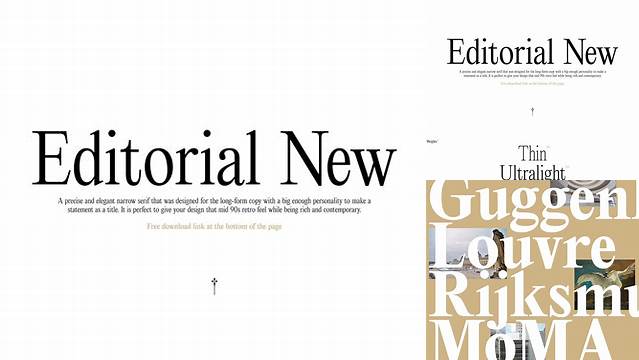
Editorial New Free Font Download: Your Ultimate Guide
Hey guys! Ever been on the hunt for that perfect font to give your project that polished, professional look? Look no further! We're diving deep into the world of editorial new free fonts, and trust me, you're going to love what we've found. Whether you're designing a magazine, crafting a killer website, or just jazzing up your social media posts, the right font can make all the difference. So, let's get started and explore the amazing options out there for editorial new free fonts!
1. Understanding Editorial Fonts
So, what exactly are editorial fonts, and why are they so crucial in the design world? Well, put simply, editorial fonts are the typefaces specifically chosen for use in publications like magazines, newspapers, and books. They're designed with readability and aesthetics in mind, aiming to create a visually engaging experience for the reader. Think about it – the font used in The New York Times is vastly different from the one you might use in a fun, quirky blog post. Editorial fonts often have a sophisticated and elegant feel, conveying professionalism and authority. When considering an editorial new free font download, it's important to think about the message you want to communicate. Are you aiming for a classic, timeless look? Or something more modern and edgy? The right font will seamlessly blend with your content, enhancing its impact and readability. It’s not just about picking something pretty; it's about selecting a typeface that elevates your entire design. Imagine using a Comic Sans-esque font in a serious news article – that wouldn’t fly, would it? So, choosing the right editorial new free font is a crucial step in ensuring your content looks and feels professional. Remember, the font is more than just letters; it's part of your brand identity and the visual voice of your content. By carefully selecting an editorial font, you're investing in the overall quality and impact of your work. Think of it like this: your content is the message, and your font is the messenger. Make sure the messenger is up to the task! That perfect editorial new free font download could be the missing piece in your design puzzle. So, keep exploring and experimenting until you find the one that speaks to you and your project.
2. The Importance of Font Choice in Design
Alright, let's talk about why font choice is so darn important in the world of design. You might think, “Hey, a font is just a font, right?” Wrong! The font you choose can completely change the way your message is perceived. It's like choosing the right outfit for a job interview – you want to make a good impression! For example, imagine you’re designing a website for a high-end luxury brand. Using a playful, cartoonish font would totally clash with the brand's image, right? You'd want something sleek, elegant, and sophisticated, like a classic serif font. That's where editorial new free fonts come into play. These fonts are often designed with that level of sophistication in mind, making them perfect for projects where you want to convey professionalism and polish. Now, when you’re browsing for an editorial new free font download, remember that readability is key. A beautiful font is useless if your audience can't easily read it. Consider the font size, the spacing between letters (kerning), and the line height (leading). All these elements work together to create a comfortable reading experience. Think about those times you've stumbled upon a website with a gorgeous but completely illegible font. Frustrating, isn’t it? You don't want to inflict that pain on your audience! Also, consider the emotional impact of fonts. Fonts have personalities! Some feel formal and serious, while others are playful and fun. Think about the mood you want to create and choose a font that aligns with it. Need a font for a children's book? Go for something whimsical and friendly. Designing a legal document? Stick to a classic, straightforward font that conveys authority and trust. Ultimately, the right font choice can elevate your design from good to great. It's about finding that perfect balance between aesthetics and functionality. So, when you're on the hunt for that next editorial new free font download, take your time, consider your options, and choose wisely. Your design will thank you for it!
4. Serif Fonts for Editorial Design
Let's dive into the world of serif fonts, a classic choice for editorial design. Serif fonts are those typefaces that have little strokes or “feet” at the ends of the letters. Think of fonts like Times New Roman or Garamond. They've been around for ages and have a timeless, elegant feel that makes them perfect for conveying authority and trustworthiness. When you're considering an editorial new free font download, serif fonts should definitely be on your radar. Why? Because they're incredibly versatile and can be used in a wide range of publications, from newspapers to novels to academic journals. One of the key strengths of serif fonts is their readability. The serifs help guide the reader's eye across the page, making long passages of text easier to digest. This is why they're often the go-to choice for body text in books and magazines. Now, not all serif fonts are created equal. There's a vast range of styles, from classic Old Style serifs like Garamond, which have a gentle, humanistic feel, to more modern Transitional serifs like Baskerville, which have a sharper, more refined look. Then there are the Slab Serifs, like Courier New, which have thick, blocky serifs that give them a bold, industrial vibe. When you're choosing a serif font for your project, think about the tone you want to convey. A classic serif like Georgia might be perfect for a serious news article, while a more decorative serif like Playfair Display could be ideal for a magazine headline. Don't be afraid to experiment and try out different combinations. Pairing a serif font with a sans-serif font (which we'll talk about next!) can create a visually appealing contrast. And of course, remember to check out those editorial new free font downloads. There are tons of amazing serif fonts out there just waiting to be discovered. So, go forth and explore the world of serifs – your designs will thank you for it!
5. Sans-Serif Fonts for Editorial Design
Alright, let's switch gears and talk about sans-serif fonts. These are the cool, modern cousins of serif fonts – they don't have those little “feet” or strokes at the ends of the letters, giving them a cleaner, more streamlined look. When you're on the hunt for an editorial new free font download, sans-serif fonts offer a ton of versatility and can bring a contemporary feel to your designs. Think of fonts like Helvetica, Arial, or Open Sans. You've probably seen them everywhere, from websites to posters to corporate branding materials. One of the great things about sans-serif fonts is their legibility, especially in digital environments. They tend to look crisp and clear on screens, making them a popular choice for website body text and user interfaces. But don't think sans-serif fonts are only for digital projects! They can also work beautifully in print, particularly for headlines, subheadings, and captions. Like serif fonts, sans-serifs come in a wide variety of styles. There are geometric sans-serifs like Futura, which have a clean, minimalist aesthetic, humanistic sans-serifs like Gill Sans, which have a warmer, more organic feel, and grotesque sans-serifs like Helvetica, which are known for their neutrality and versatility. When choosing a sans-serif font for your project, consider the overall style and tone you're aiming for. A geometric sans-serif might be perfect for a tech-focused brand, while a humanistic sans-serif could be a great choice for a lifestyle magazine. Pairing sans-serif fonts with serif fonts can create a visually interesting contrast and hierarchy in your design. For example, you could use a bold sans-serif for your headlines and a classic serif for your body text. It's all about finding the right balance. And remember, there are tons of fantastic editorial new free font downloads out there in the sans-serif world. So, don't hesitate to explore and experiment until you find the perfect fit for your project!